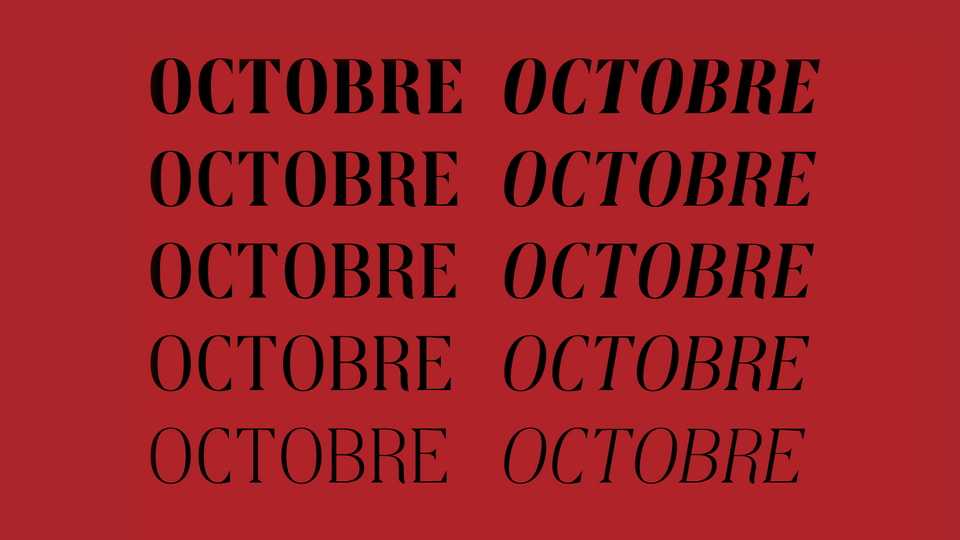
Download October font, an all caps typeface, inspired by the letters engraved on the tombstones of French cemeteries. Considering that, October is like carved in stone, the sharp corners and an overall touch that is meant to be raw